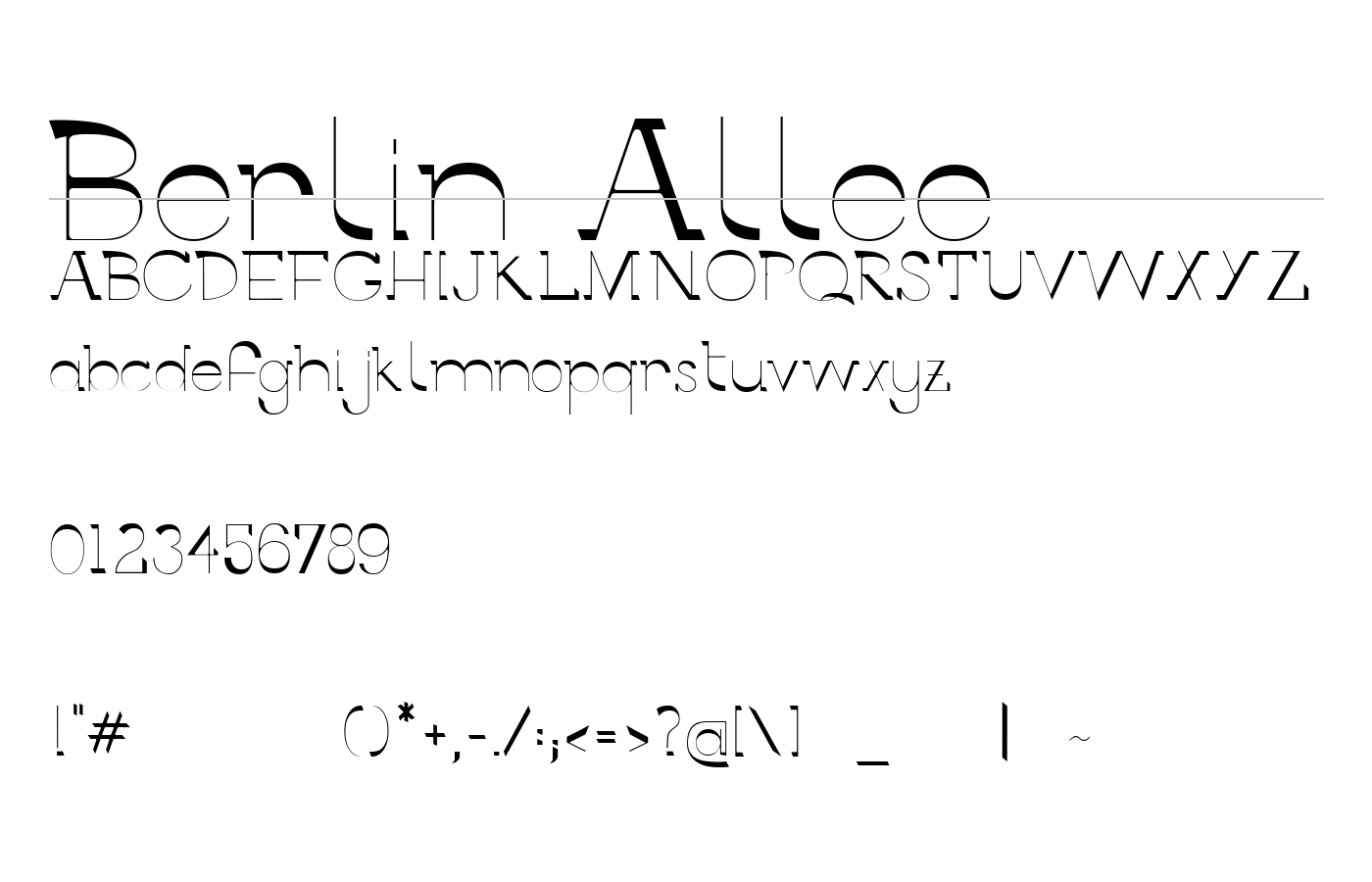
Berlin Allee is a modern, elegant serif font with a distinct contrast between thin and thick strokes, lending it a sophisticated, artistic flair. Its tall, narrow letterforms and delicate serifs create a refined, upscale feel that works beautifully for fashion branding, editorial headlines, and stylish logos. This font’s unique shapes and high contrast make it perfect for designs that want to stand out with a blend of luxury and contemporary charm.
Berlin Allee Font